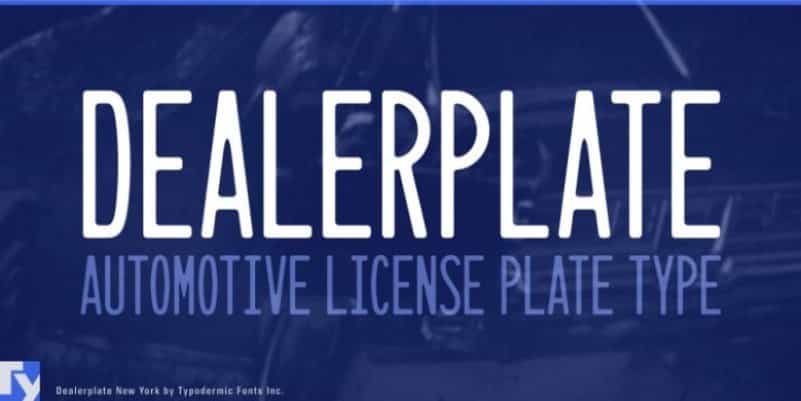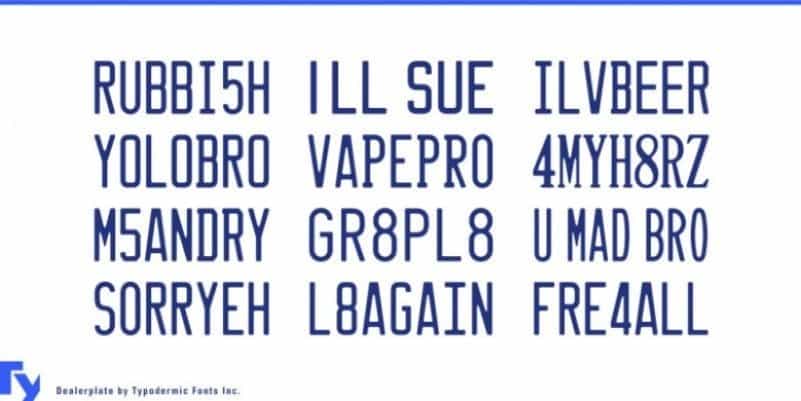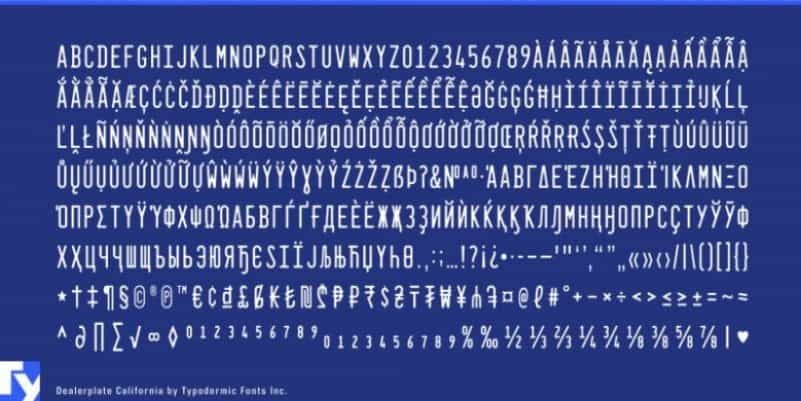
Dealerplate California Font is a fresh modern sans serif font family designed by Typodermic Fonts Inc., with the crisp and stylish lettering that is perfect for those big titles! Dealerplate comes with 17-font hierarchy which imitates the embossed plates issued to cars in both the Canada and the United States.